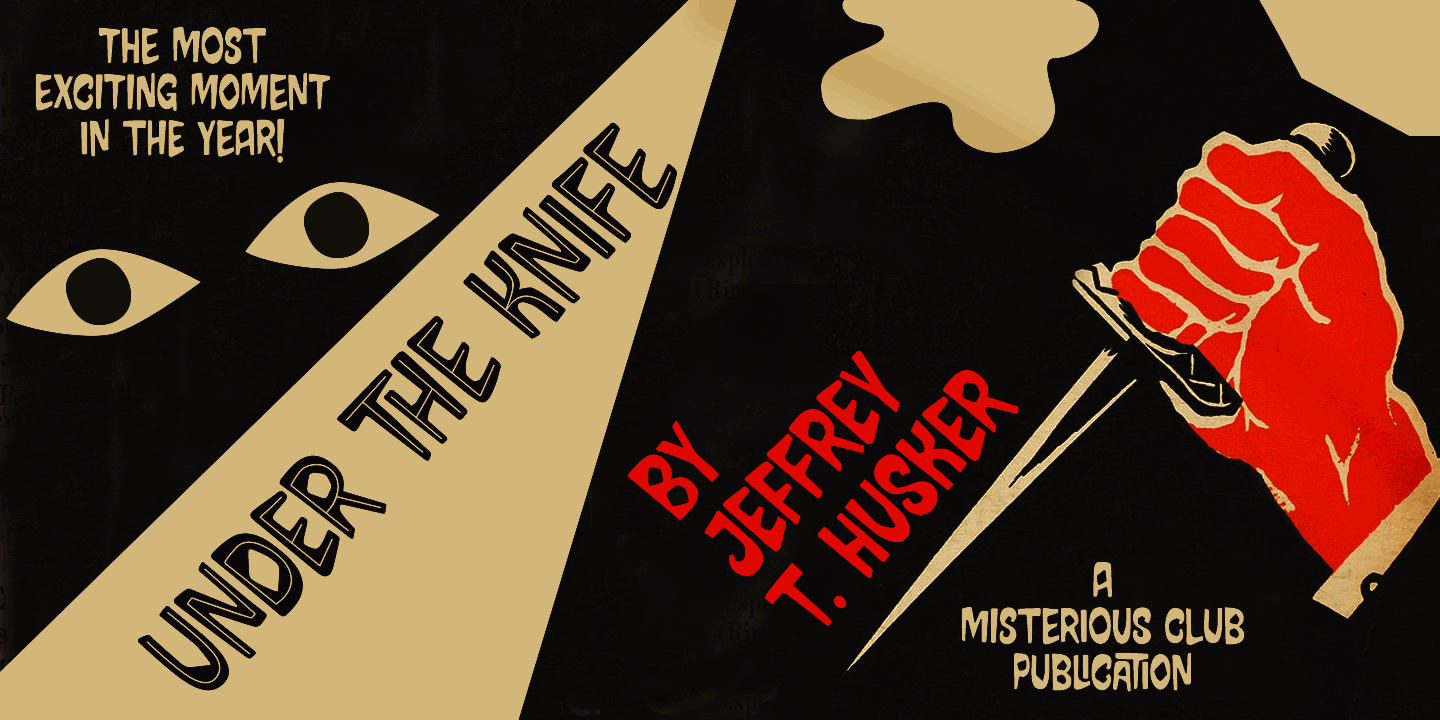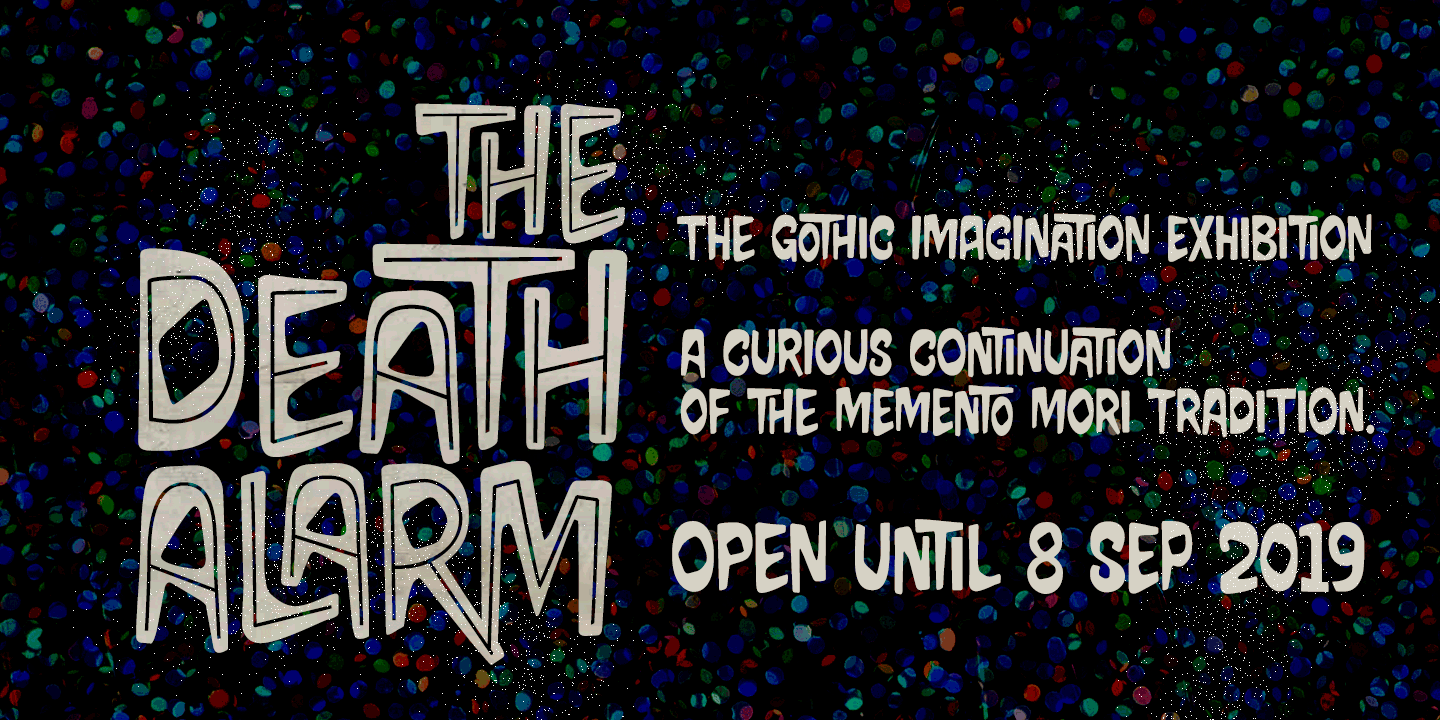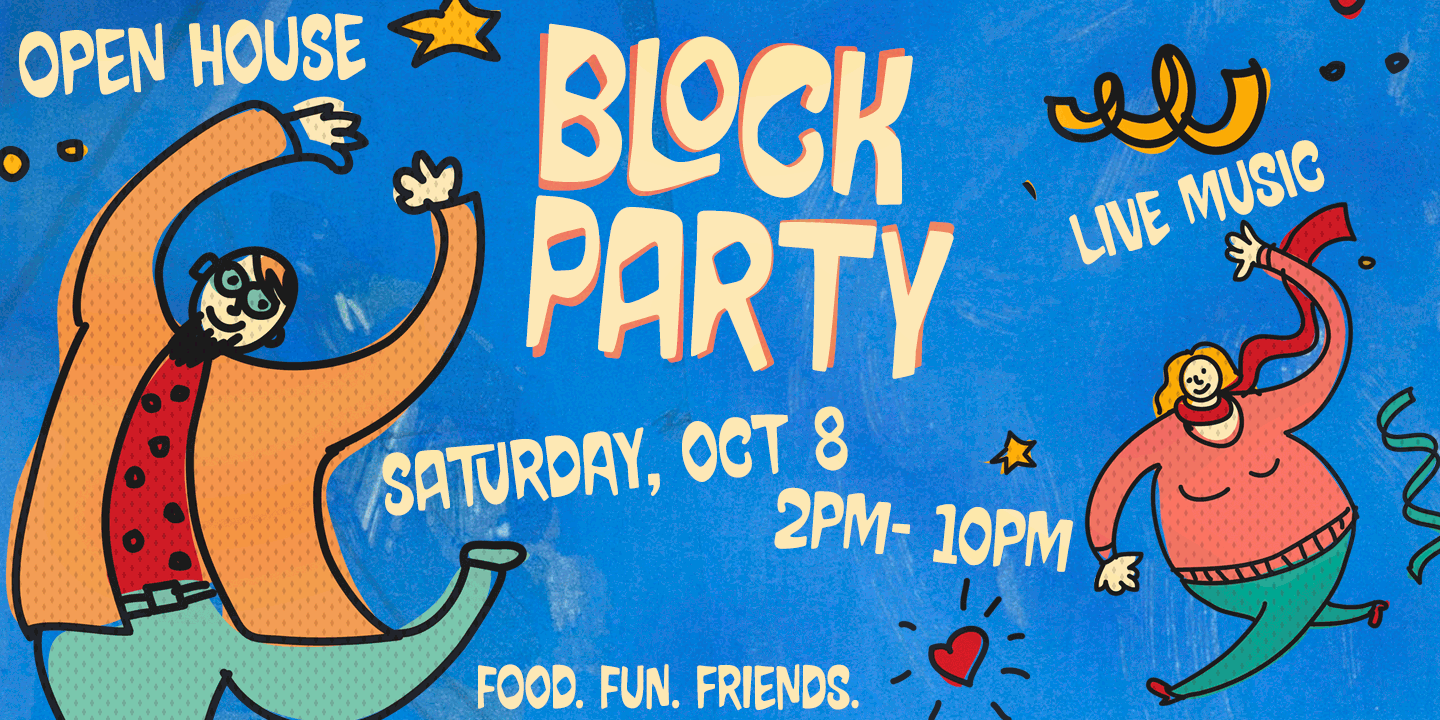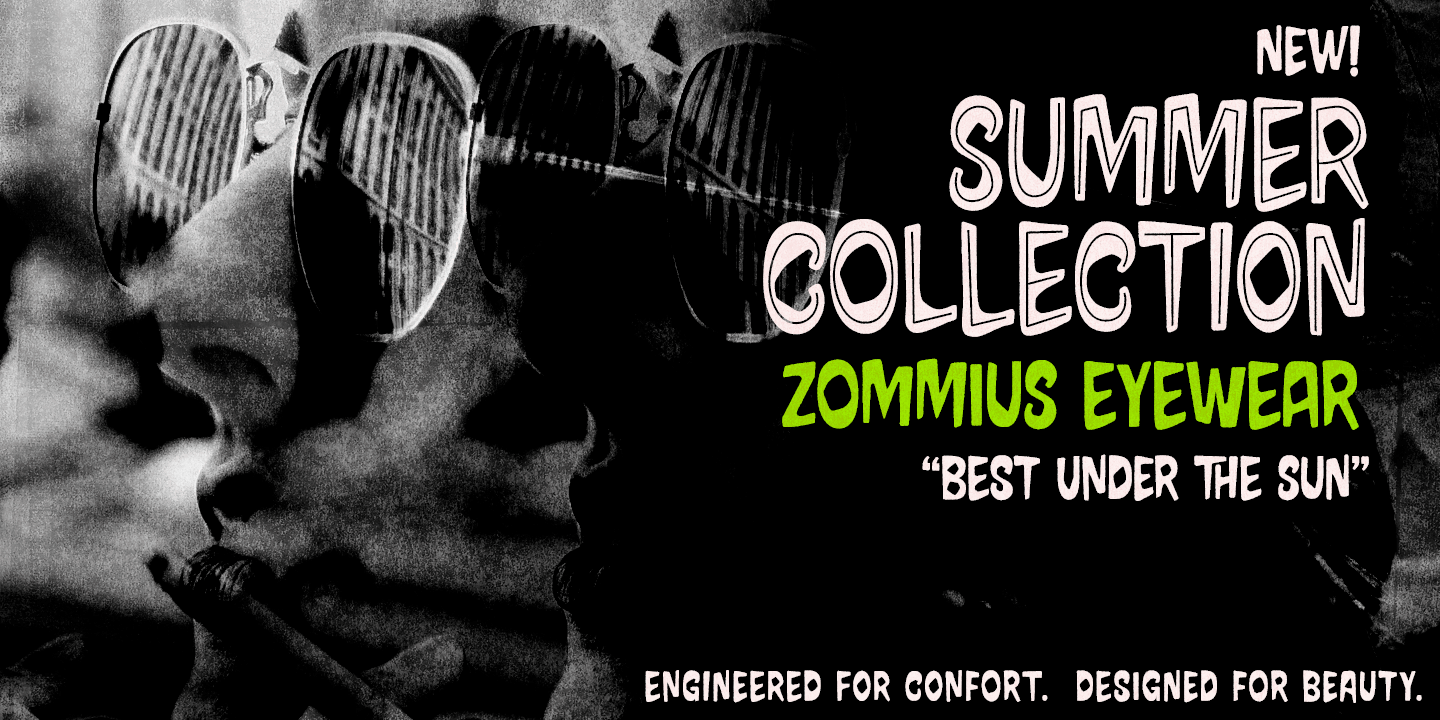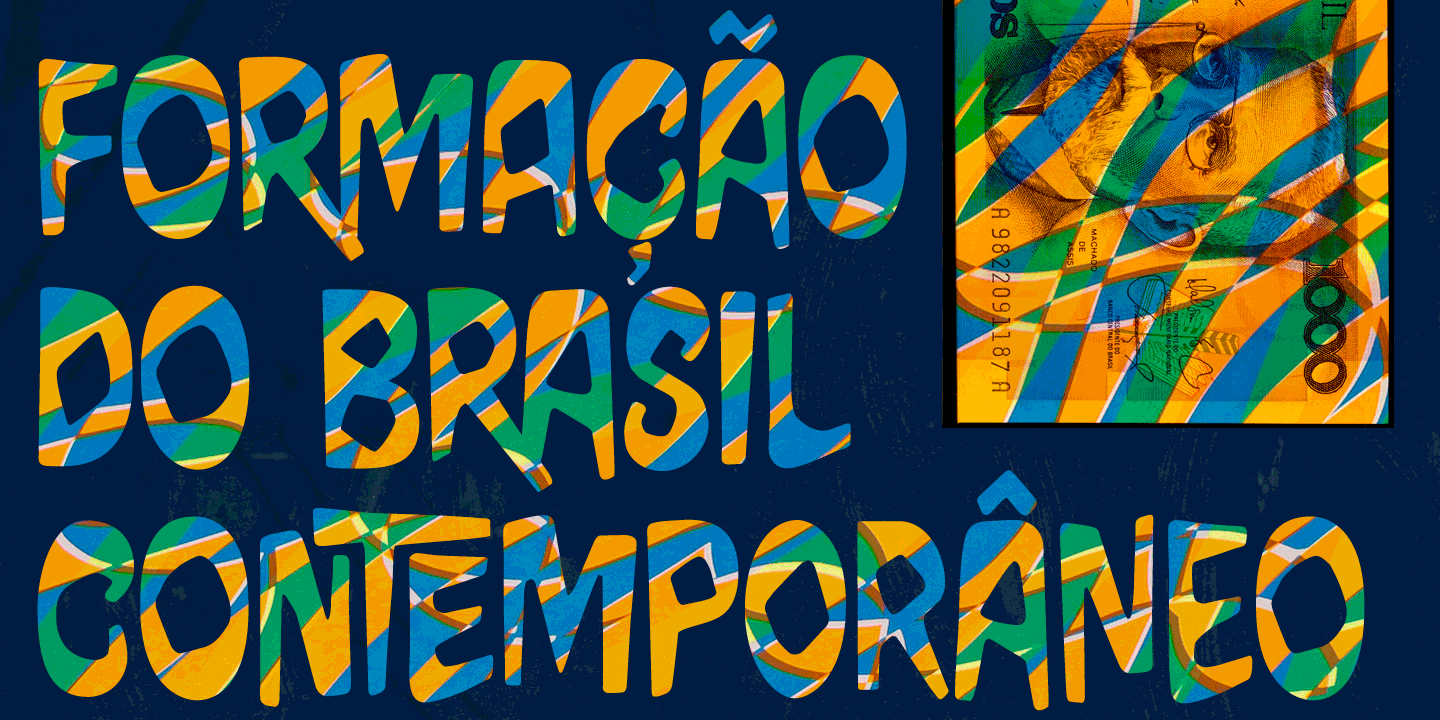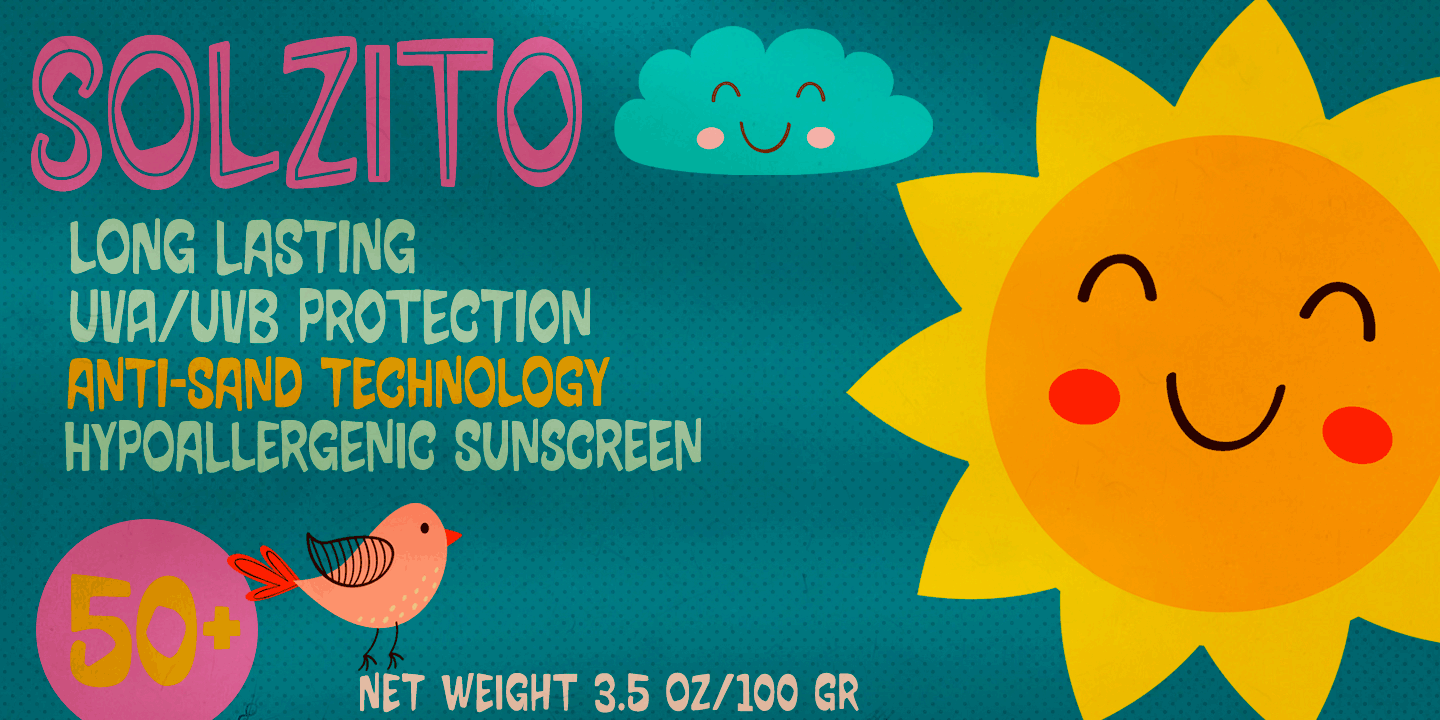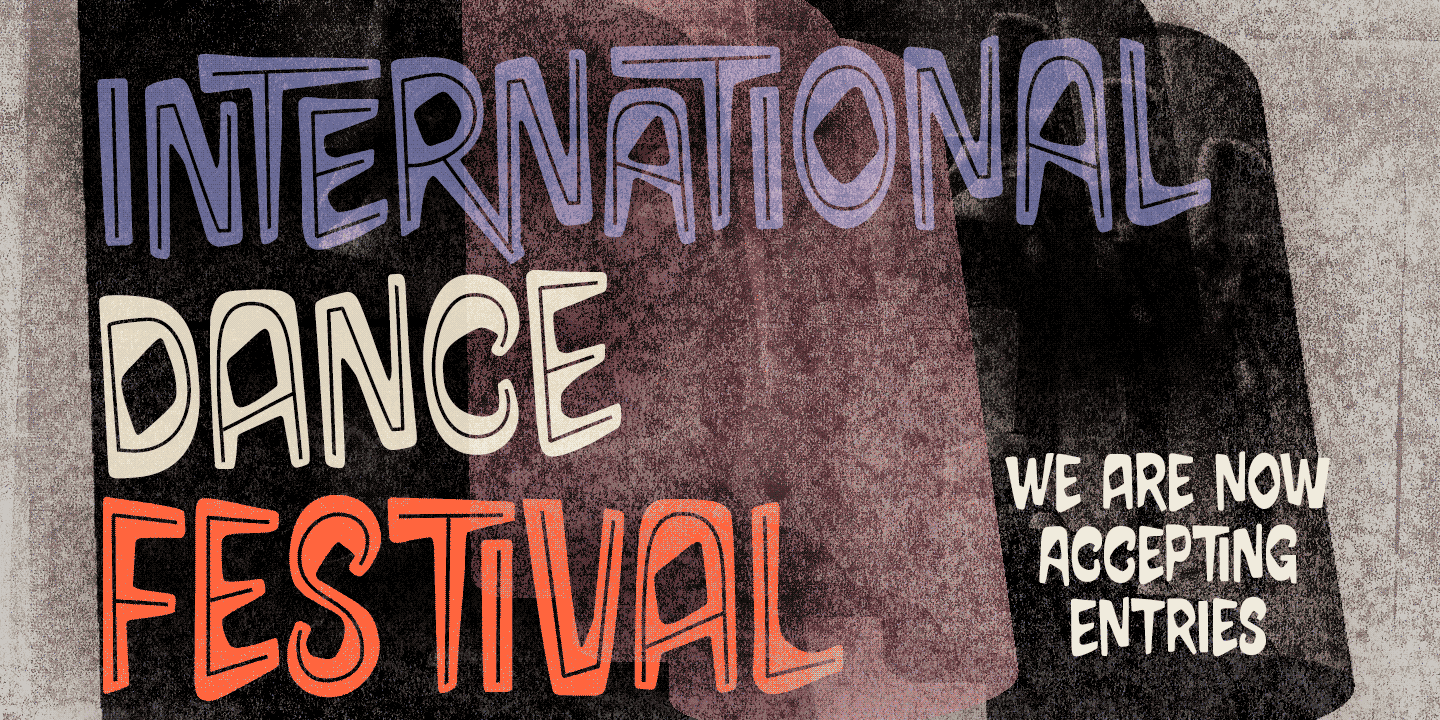
About the PindORama Font
About Pind-O-Rama Font Family Pind-O-Rama is quite an unconventional font, with strange counters and shapes and choices and interlocks that just stand out. For sometimes fitting in is absolutely not wanted.Pindorama is how the native Tupi people originally called Brazil before colonization by the Portuguese.
This font draws inspiration from a book on Brazil colonial background, precisely from a 1961 edition – the book was first published in 1943. Unfortunately the cover design is uncredited.Why fit in? Let’s stand out! Designers: Erica Jung, Ricardo MarcinPublisher: PintassilgoPrintsFoundry: PintassilgoPrintsDesign Owner: PintassilgoPrintsMyFonts debut: Oct 12, 2019 Pind-O-Rama